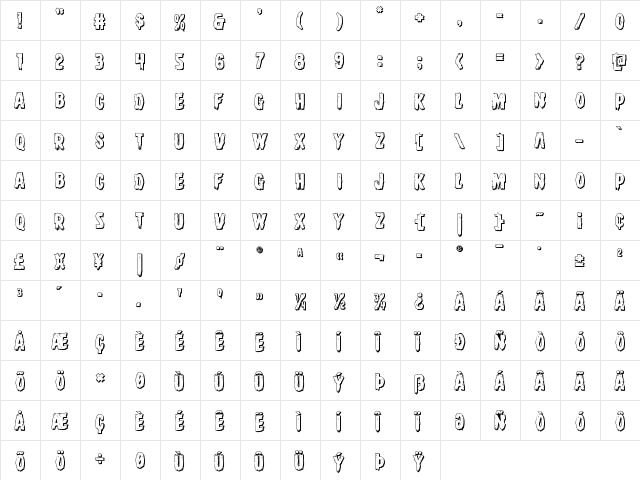
Dire Wolf 3D Regular
Design Context for Dire Wolf 3D Typeface
Dire Wolf 3D is a composed and adaptable typeface that performs quietly and consistently across a wide range of design contexts.